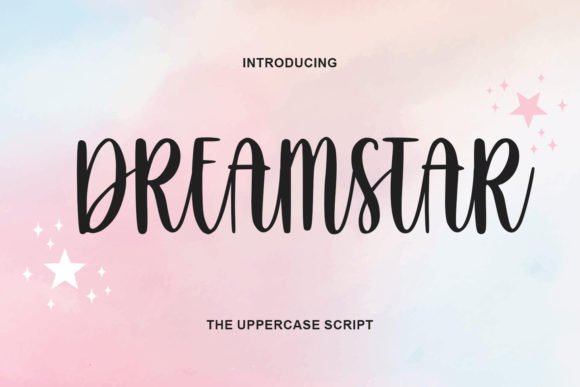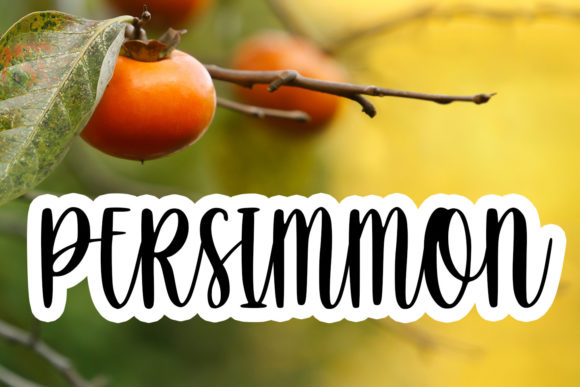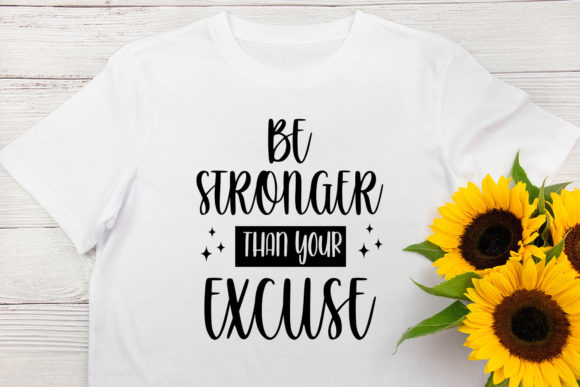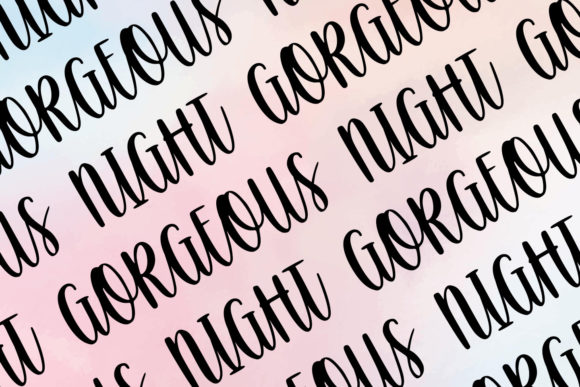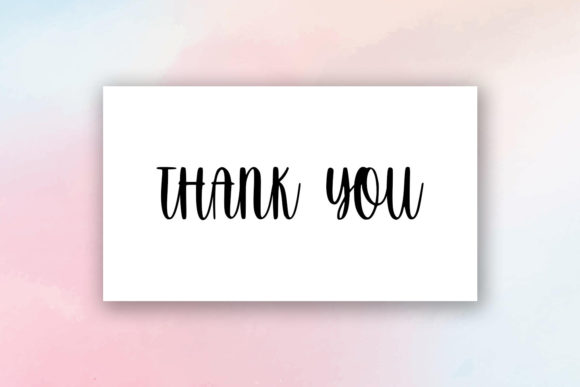
The Birth of a Dream: Bringing Your Vision to Life with Dreamstar Font
There’s a moment when you’re working on a design project, and you see it all come together. The colors, the shapes, the text – everything is perfectly aligned, and you know you’ve created something special. That’s the moment when the right font can make all the difference. And for designers, the Dreamstar Font is about to become that game-changing element.
With its clean, thin, and smooth design, the Dreamstar Font is the perfect addition to any project that needs a touch of elegance and sophistication. Whether you’re working on a branding campaign, a wedding invitation, or a personal blog, this stylish script font is sure to make your design stand out. Its versatility and refined look make it a valuable asset for any designer looking to elevate their work and bring their vision to life.
Dreamstar Font Key Features
- Unique Characteristics: Features a unique blend of futuristic and elegant styles, making it perfect for science fiction, fantasy, and futuristic-themed designs.
Dreamstar Font Review
I recently had the chance to work with the Dreamstar Font, and I must say it’s a mixed bag. Here are my honest thoughts.
- The Dreamstar Font has a unique, celestial vibe that’s perfect for futuristic or sci-fi projects.
- The font is highly legible, even at small sizes, making it ideal for digital applications.
- The font family is extensive, with multiple weights and styles to choose from.
- The Dreamstar Font can feel a bit too flashy or over-the-top for more conservative or traditional projects.
- The font’s high x-height can make it difficult to pair with other fonts, especially those with more subtle x-heights.
- The font’s extensive feature set can make it overwhelming to navigate, especially for designers who prefer a more minimalist approach.
Overall, the Dreamstar Font is a great choice for designers who want to add a touch of futurism to their projects. While it may not be suitable for every project, it’s a solid addition to any font library. With a bit of careful planning and pairing, the Dreamstar Font can help elevate your designs to the next level.
Tips for Getting the Most Out of Dreamstar Font
Use Dreamstar Font for creative and whimsical designs, such as invitations, posters, and social media graphics.
Experiment with different font sizes and colors to create a unique and eye-catching look.
Combine Dreamstar Font with other creative elements, such as illustrations and graphics, to create a visually appealing design.
Dreamstar Font is perfect for:
Wedding invitations and decorations
Children’s party invitations and decorations
Social media graphics and ads
Poster and flyer designs
Alternatives to Dreamstar Font for Designers
Ostrich Sans is a modern sans-serif font that is perfect for creating a clean and minimalist design. It is ideal for use in digital products, apps, and websites where a clean and easy-to-read font is required.
Compared to Dreamstar Font, Ostrich Sans has a more geometric and modern feel, making it a great choice for contemporary designs. It is also highly legible and suitable for long blocks of text.
Lato is a sans-serif font that is highly versatile and suitable for a wide range of designs, from corporate to creative projects. It is ideal for use in headings and titles where a bold and attention-grabbing font is required.
Is the Dreamstar Font compatible with variable font technology?
Yes, the Dreamstar Font is designed to work with variable font technology, which allows for dynamic font adjustments based on user input or design requirements. This means that the font can be used to create custom font weights, styles, and sizes, making it a versatile choice for modern design applications.